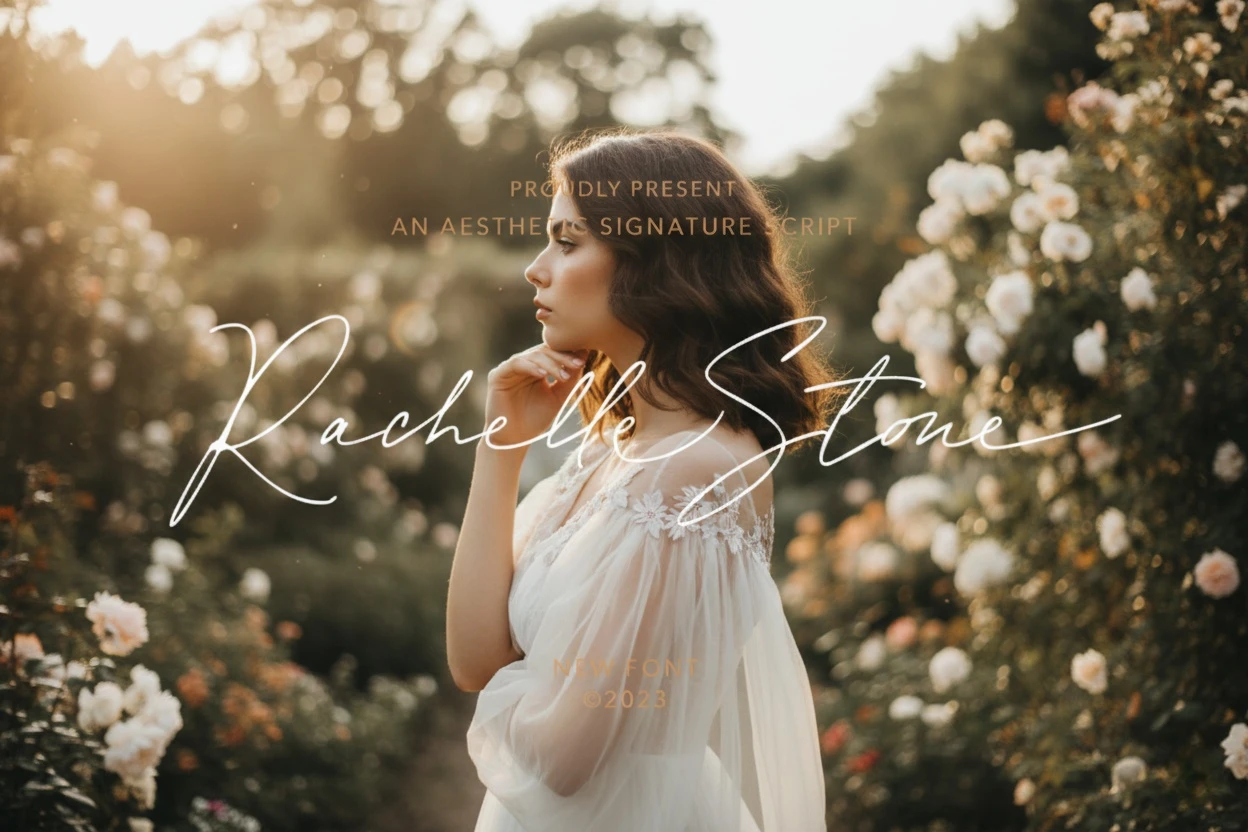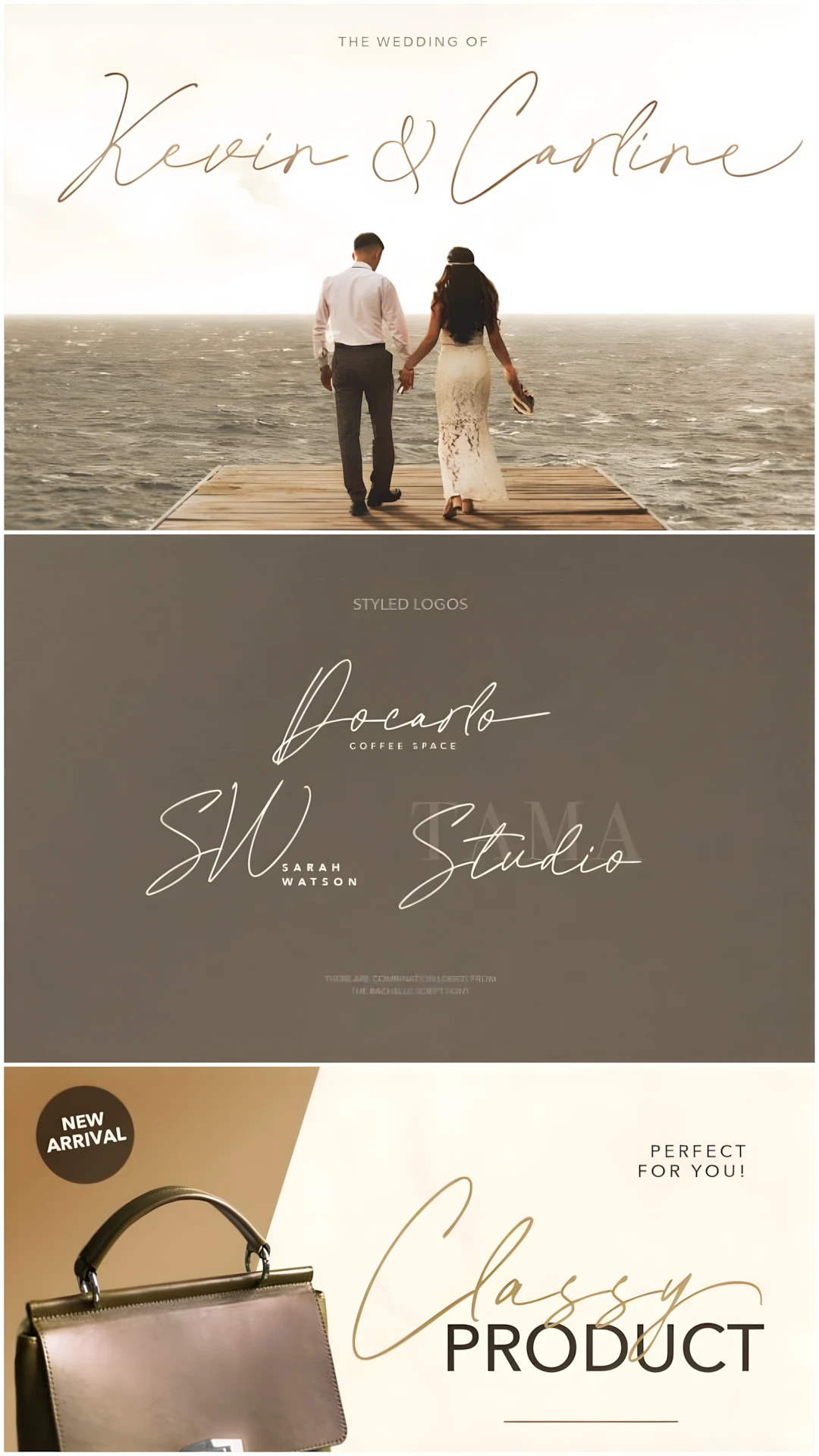
Rachelle Stone Font: Elegant Signature Script Font
Rachelle Stone script font preview with natural handwritten style for digital signatures, quotes, logos and branding
Rachelle Stone Font is a nice script that looks like authentic handwriting. It adds a touch of class to anything you’re working on. It’s popular for wedding designs, fancy brands, magazines, and signatures.
Unlike some scripts that seem fake, Rachelle Stone Font has a natural feel. Each letter flows into the next, making your text look both refined and personal. It works well for big titles but also looks good with simple fonts.
It’s also easy to use in many ways. It works for signatures, logos, and stylish quotes. And it supports many languages.
Main Features of Rachelle Stone Font
Fancy Script Style
Rachelle Stone Font’s style is like real handwriting. The lines change in thickness, like a real pen would make. This gives your text a classy, warm feel that’s great for important things.
Special Characters
One of the best things about Rachelle Stone Font is the special characters it offers. These let letters connect in cool ways, so everything looks unique. You can turn these on in programs like Adobe Illustrator or Photoshop.
Language Options
Rachelle Stone Font works for different languages, so it’s good for global brands. It has all the special letters and symbols you need for different regions.
Where to Use Rachelle Stone Font
Wedding Designs
Rachelle Stone Font is great for wedding invites, menus, and signs. Its romantic style goes well with modern, classic, or natural wedding themes.
Logos and Branding
High-end brands often pick Rachelle Stone Font for logos. It makes them seem friendlier and more trustworthy.
Online Signatures
If you want a professional digital signature for emails, Rachelle Stone Font looks polished and real.
Fonts to Pair With Rachelle Stone Font
Good Sans-Serif Choices
• Montserrat
• Lato
• Poppins
These fonts balance the fanciness of Rachelle Stone Font with clear text.
Good Serif Choices
• Playfair Display
• Merriweather
• Libre Baskerville
Serif fonts look good for magazines and fancy brands.
Why People Like Rachelle Stone Font
People like Rachelle Stone Font since it’s easy to use, pretty, and looks real. It seems handmade but still looks professional. It makes designs better without being too much. The special characters and language options make it a good choice for any font collection.
Summary
Rachelle Stone Font is a great script that adds beauty to any project. With its natural style, language options, and wide support, it’s a good pick for weddings, brands, and signatures. If you need a script that feels personal and professional, check out this font.